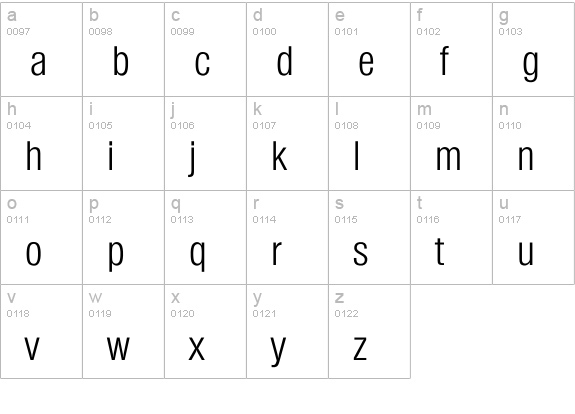
Colympia Light is a refined, elegant variant in the Colympia typeface family \xE2\x80\x94 well suited to elegant body text, refined sub-headings, and luxury branding.
Colympia Light is a modern and sophisticated font that exudes elegance and style. With its sleek and clean lines, this font is perfect for adding a touch of class to any design project. Whether you're creating a logo, website, or printed materials, Colympia Light will make your text stand out with its timeless appeal. The best part is that Colympia Light is completely free to use! You can easily download this stunning font at FontsMarket.com and start incorporating it into your designs right away. Don't miss out on the opportunity to enhance your projects with the beauty and professionalism of Colympia Light font. Download it now and elevate your design game to the next level!